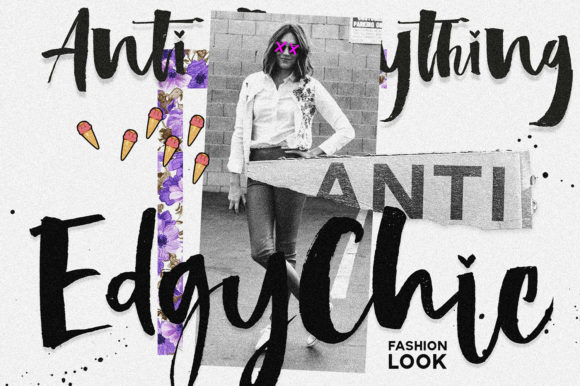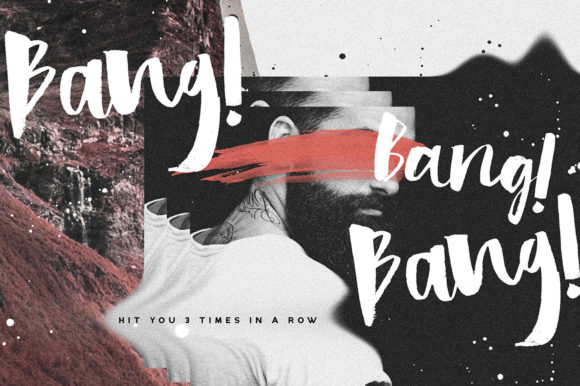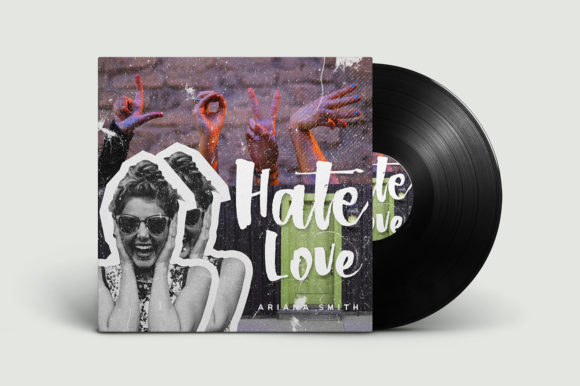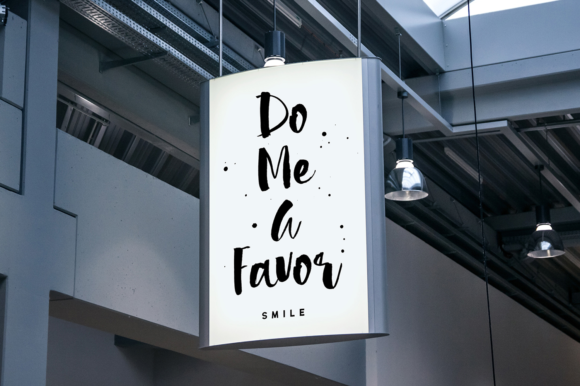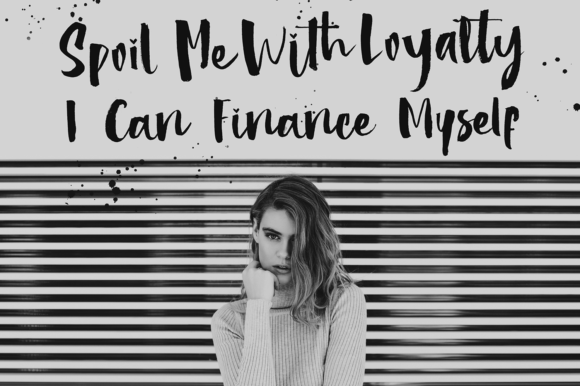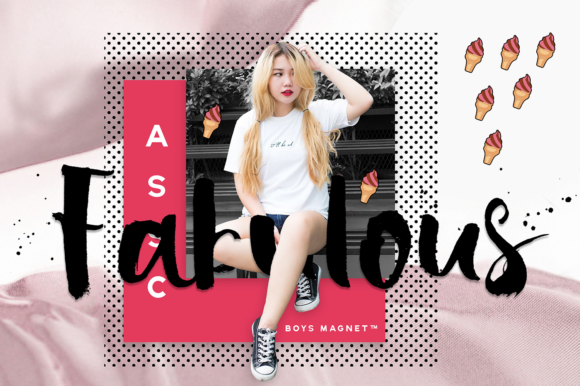
Unleashing Your Inner Designer: Discover the Magic of Hastagirl Font
Have you ever been stuck in a creative rut, scrolling through social media, and suddenly stumbled upon a beautiful quote or logo that sparks inspiration? That’s exactly what happened to many designers when they discovered the Hastagirl Font. This lovely and chic handwritten font has been the go-to choice for creating eye-catching logos, branding, and quotes that leave a lasting impression.
With its unique and beautiful touch, Hastagirl Font adds a personal and artistic flair to any design. Whether you’re a seasoned designer or just starting out, this font is a valuable addition to your toolkit. Its versatility and charm make it the perfect choice for a wide range of projects, from social media graphics to wedding invitations and more.
Hastagirl Font Key Features
- Unique Characteristics: The Hastagirl font features a distinctive, hand-drawn aesthetic with a mix of serif and sans-serif elements, making it perfect for creating eye-catching headlines and titles.
Honest Review of Hastagirl Font
At first glance, Hastagirl Font appears to be a fun and playful addition to any design project ✨. Its rounded edges and whimsical feel immediately caught my attention. The font’s weight distribution and letter spacing are well-balanced, making it suitable for a variety of uses, including social media graphics, advertising, and editorial content.
- Unique aesthetic: Hastagirl Font offers a distinct look that sets it apart from more traditional fonts.
- High legibility: The font is easy to read, even at smaller sizes.
However, there are some limitations to consider ⚠️. The font may not be the best choice for formal or professional projects, as its playful nature may come across as unprofessional. Additionally, the font’s weight may not be suitable for all types of content, such as technical documentation or complex information.
Overall, Hastagirl Font is a solid choice for designers looking to add some personality to their projects. While it may not be the best fit for every project, it’s a versatile and fun font that can add a touch of whimsy to a variety of designs.
Getting the Most Out of Hastagirl Font
To get the most out of Hastagirl Font, use it in combination with bold or italic styles to create emphasis. You can also use it in conjunction with other fonts to create a unique and eye-catching design.
Hastagirl Font is commonly used in social media graphics, blog posts, and marketing materials. It’s a great choice for creating attention-grabbing headlines and adding a touch of personality to your design.